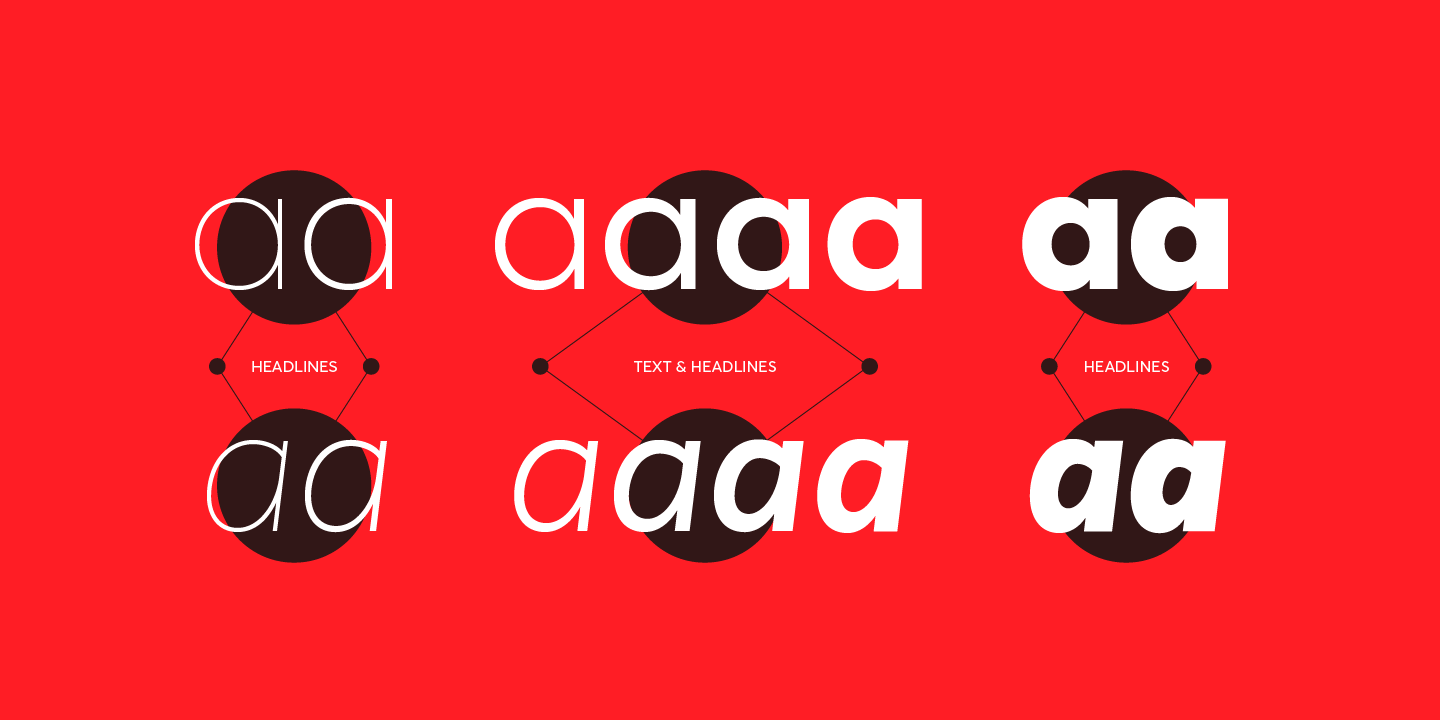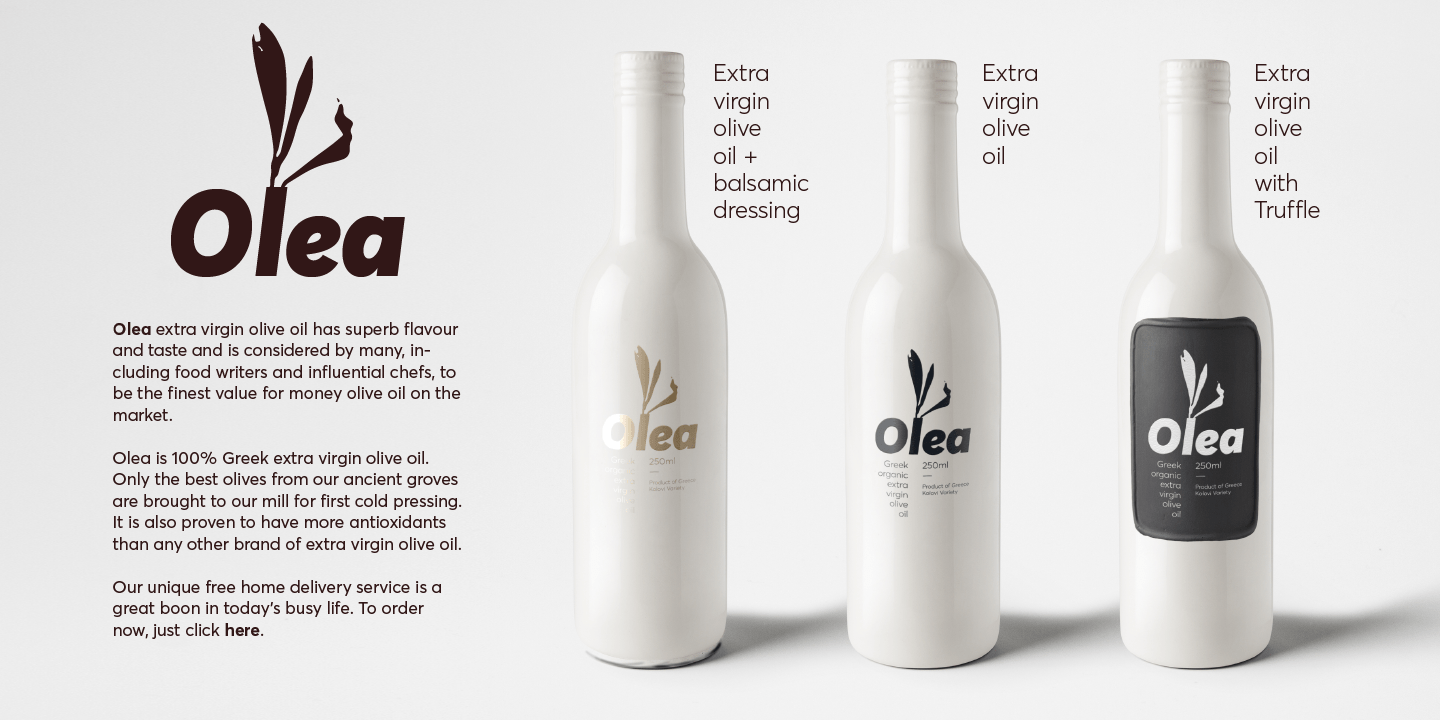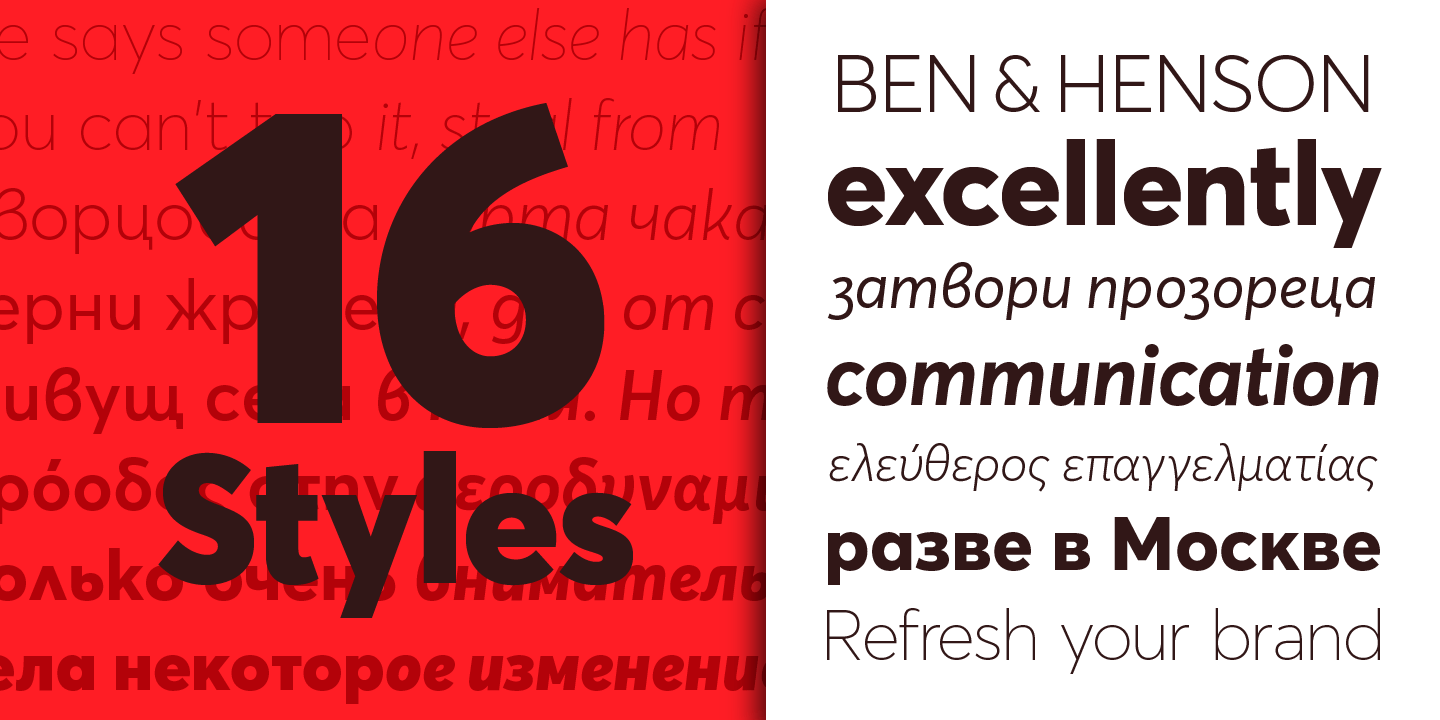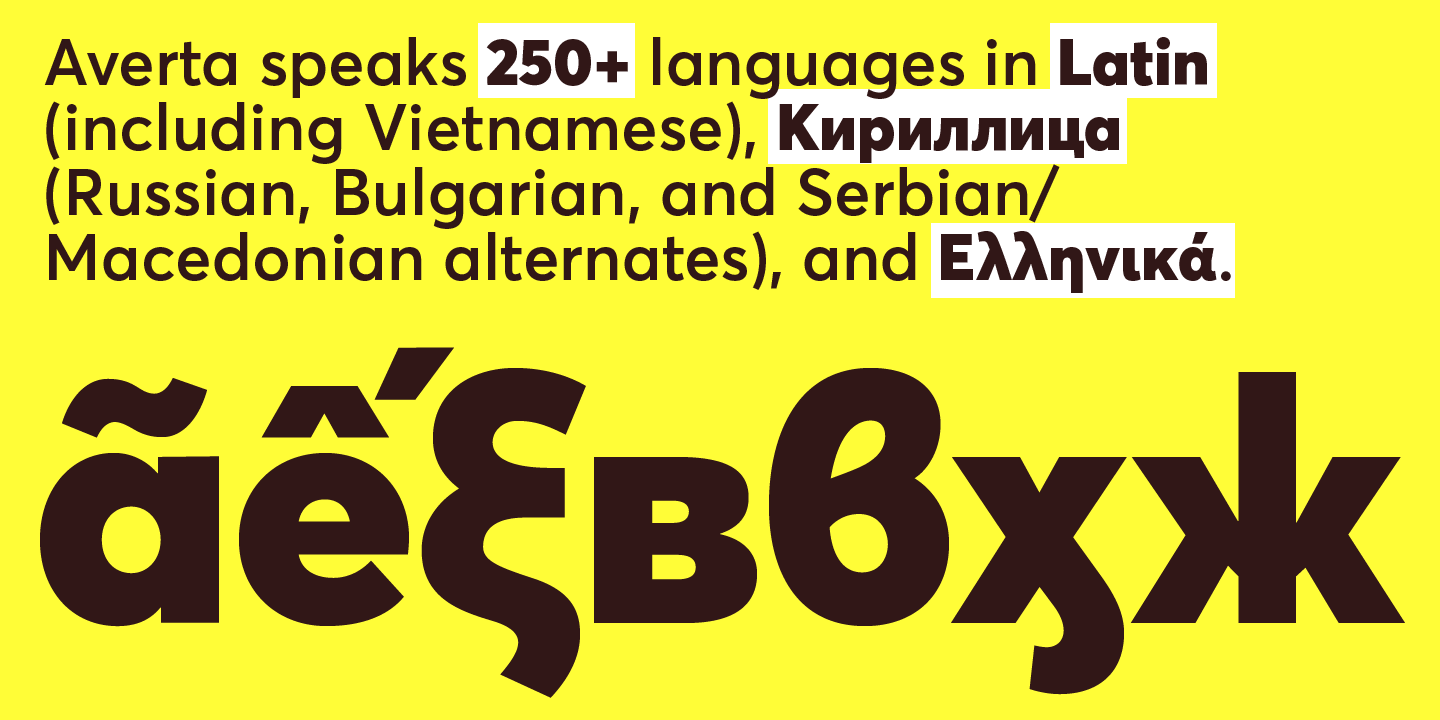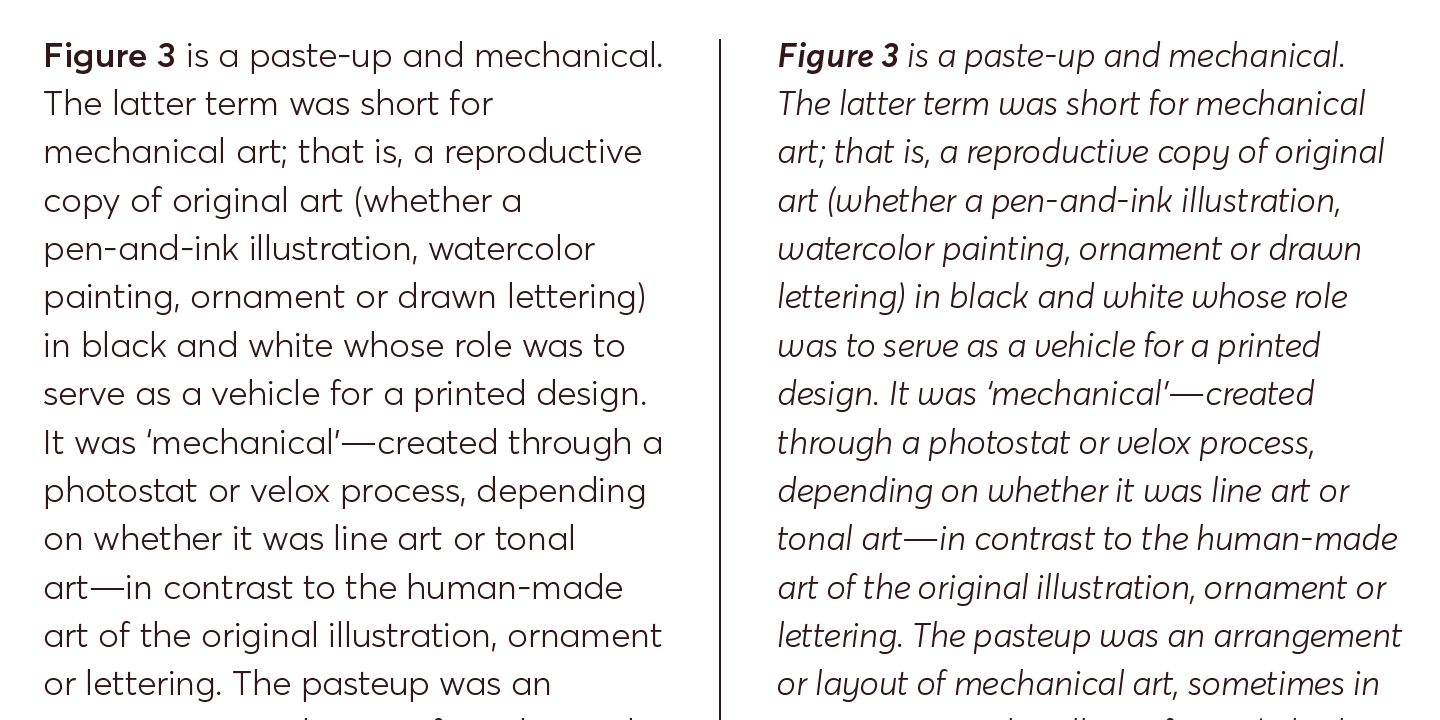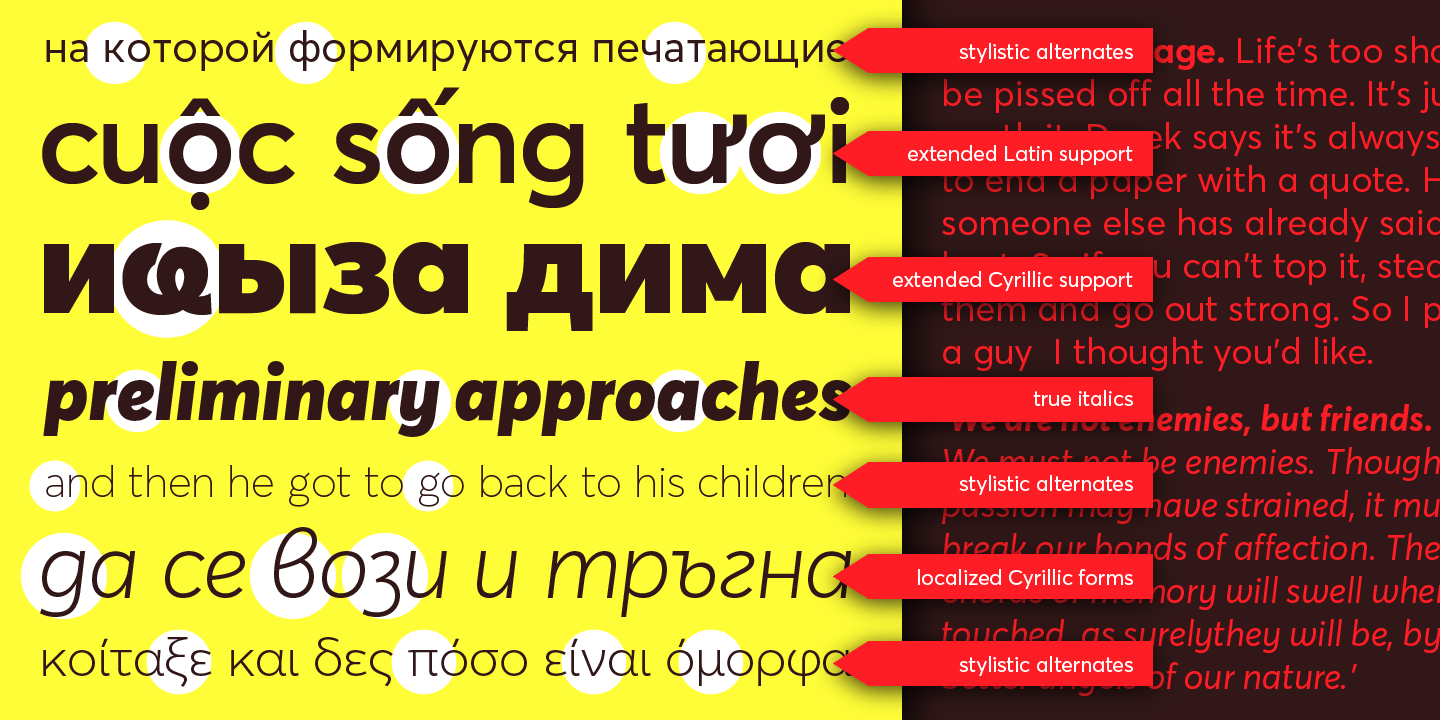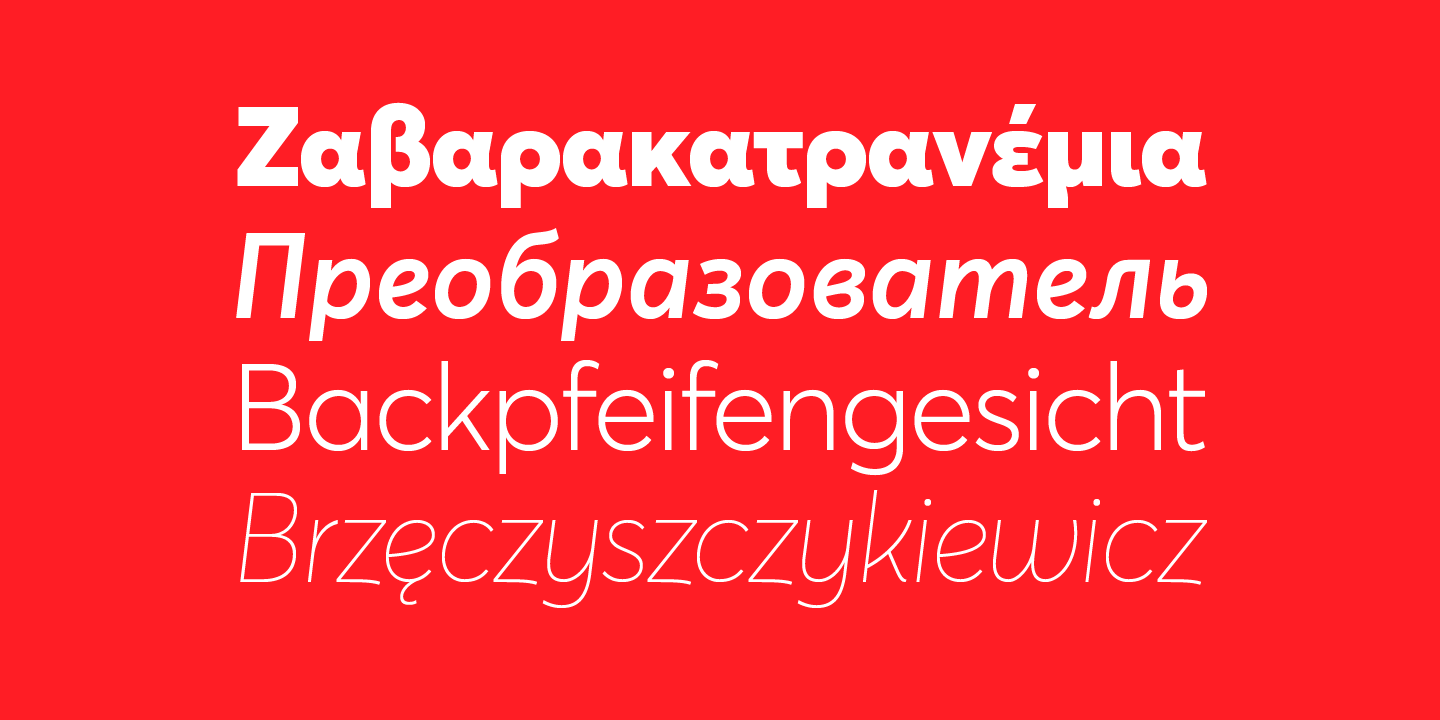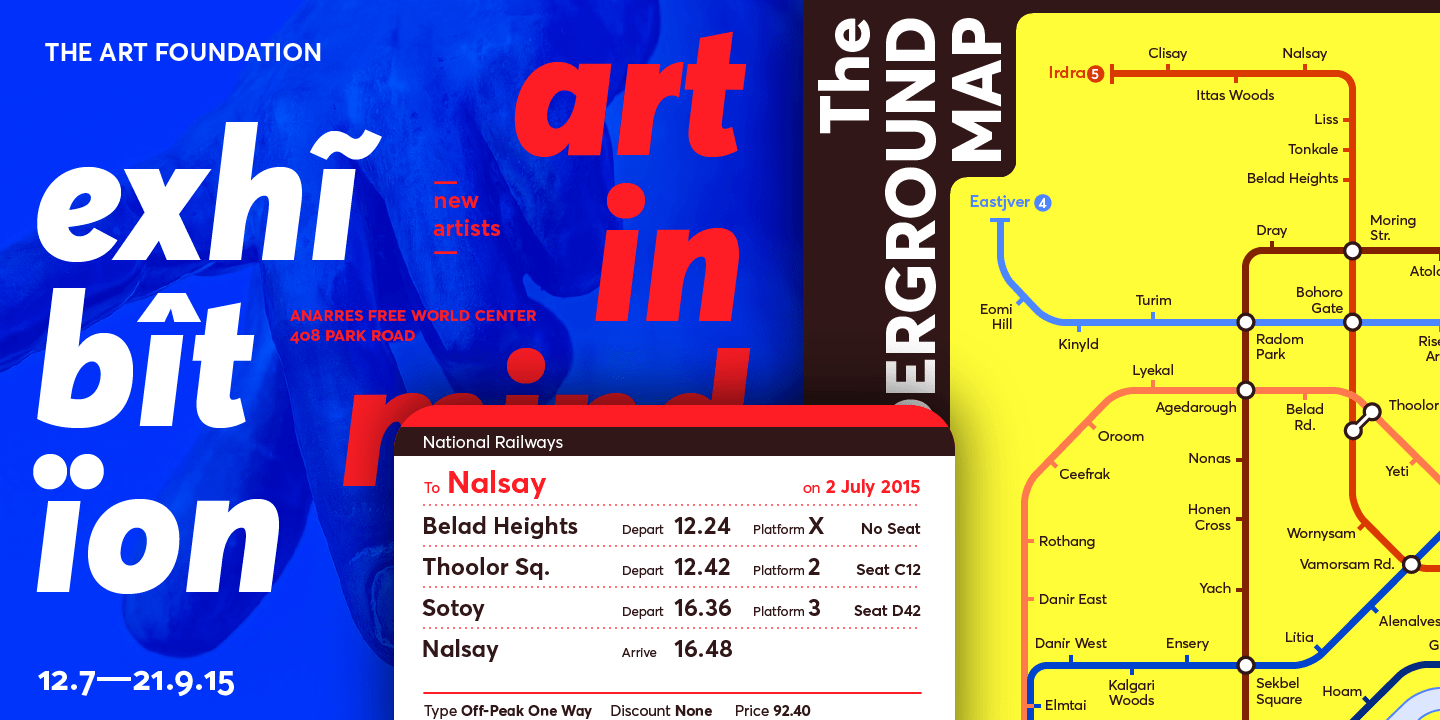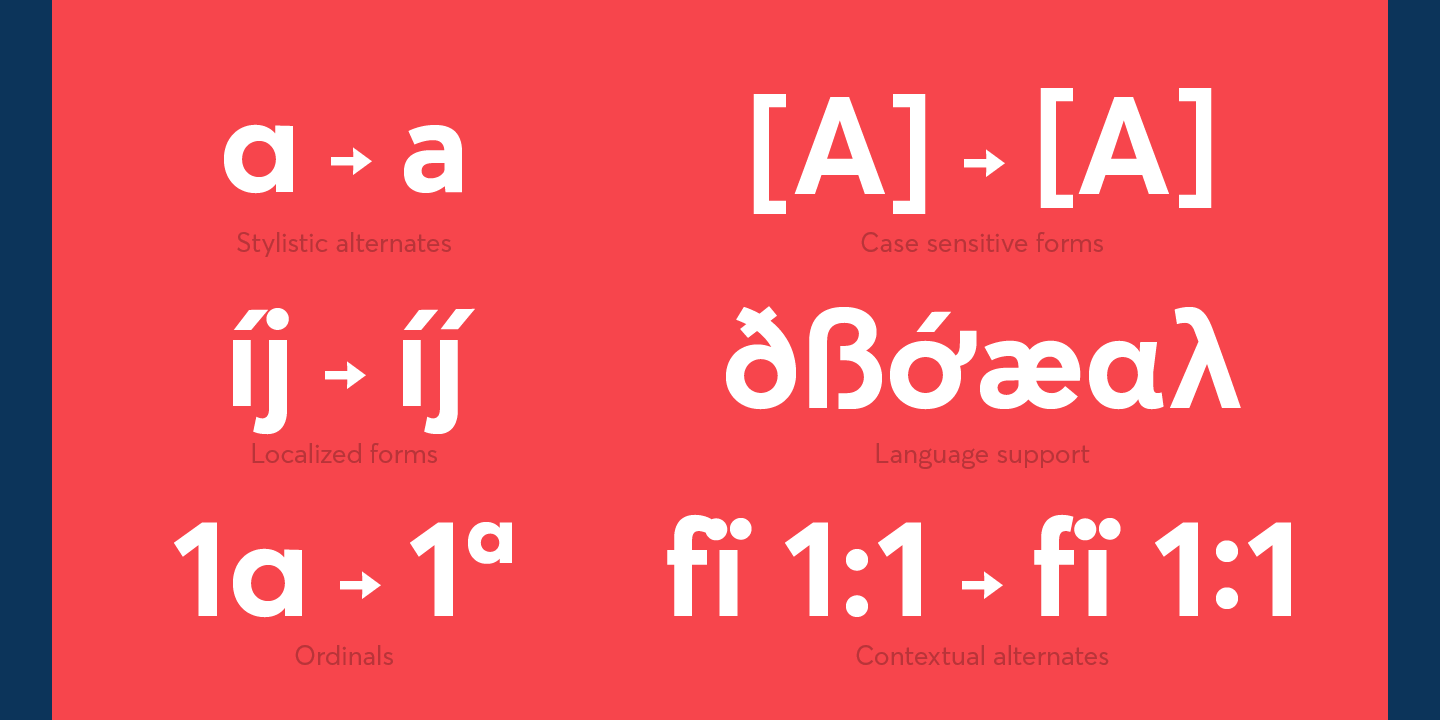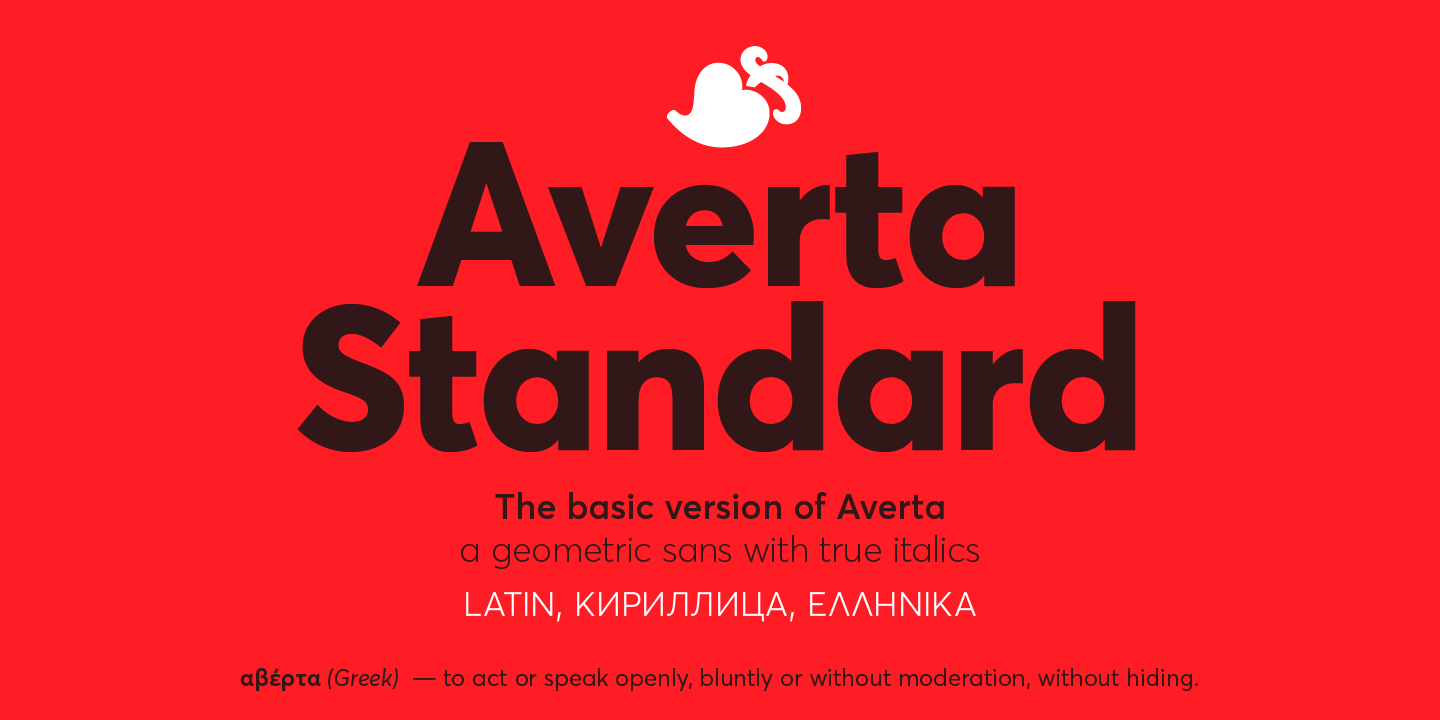
Averta Standard CY
About Averta Standard CY
Averta Standard is the basic version of Averta. Bringing together features from early European grotesques and American gothics, Kostas Bartokas' (Greek: ‘αβέρτα’ to act or speak openly, bluntly or without moderation,…